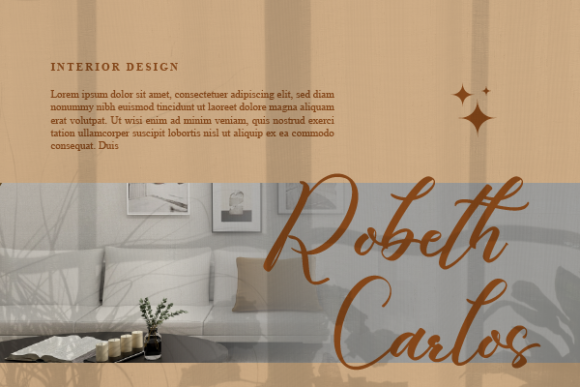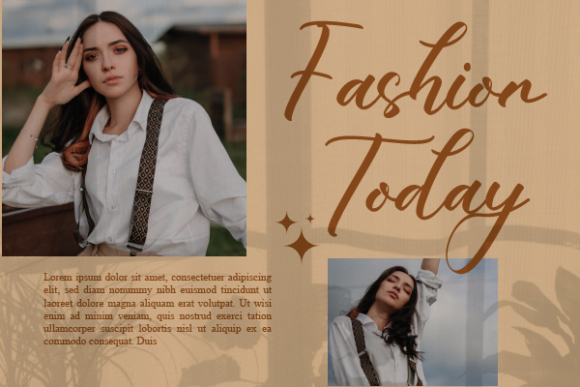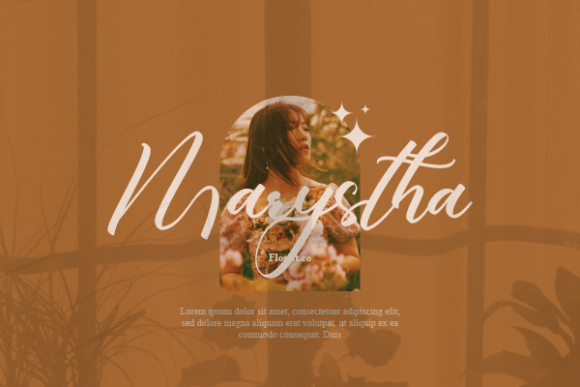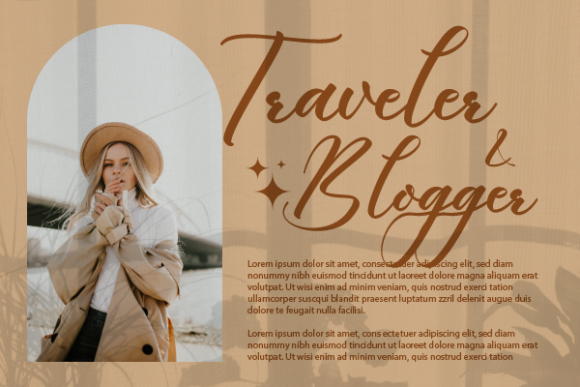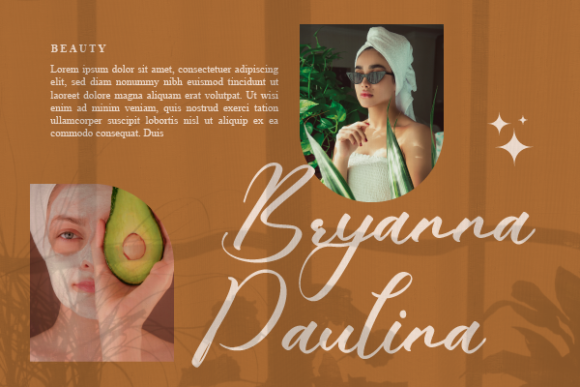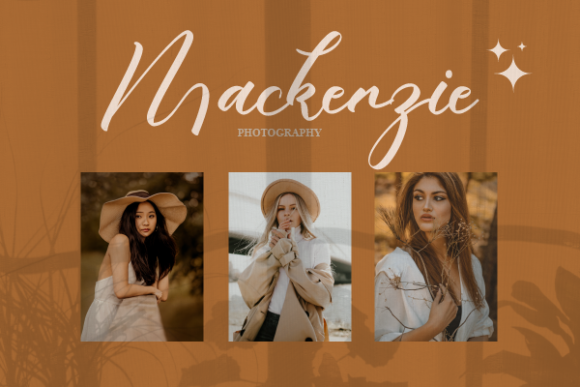
Discover the Elegance of Chandler Nathalia Font
In the world of typography, few fonts manage to strike a balance between charm and elegance. However, Chandler Nathalia Font achieves this delicate balance effortlessly, making it a favorite among designers and crafters. This beautiful font is perfect for adding a customized touch to various designs, from wedding invitations to business cards.
The Charm of Chandler Nathalia Font
Chandler Nathalia Font exudes a sense of sophistication and refinement, making it an ideal choice for designs that require a touch of elegance. Its unique style and flair can instantly elevate your designs, setting them apart from the rest. Whether you’re working on a wedding invitation, a thank you card, or a quote, this font is sure to make your design look stunning.
One of the standout features of Chandler Nathalia Font is its versatility. It can be used for a wide range of designs, including:
- Wedding invitations: Add a touch of romance and elegance to your wedding invitations with this beautiful font.
- Thank you cards: Express your gratitude in style with Chandler Nathalia Font.
- Quotes: Make your quotes stand out with this stunning font.
- Greeting cards: Create beautiful greeting cards for special occasions with Chandler Nathalia Font.
- Logos: Use this font to create a unique and memorable logo for your business.
- Business cards: Add a touch of elegance to your business cards with Chandler Nathalia Font.
Why Designers and Crafters Love Chandler Nathalia Font
Designers and crafters love Chandler Nathalia Font for several reasons:
- Elegant and charming: This font exudes elegance and charm, making it perfect for designs that require a sophisticated touch.
- Highly versatile: Chandler Nathalia Font can be used for a wide range of designs, from wedding invitations to business cards.
- Easy to read: Despite its elegant style, this font is easy to read, making it perfect for designs that require a clear and concise message.
- Customizable: With Chandler Nathalia Font, you can add a customized touch to your designs, making them truly unique.
Tips for Using Chandler Nathalia Font
Here are some tips for using Chandler Nathalia Font effectively:
- Pair it with other fonts: Experiment with pairing Chandler Nathalia Font with other fonts to create a unique and visually appealing design.
- Use it for headings: This font is perfect for headings and titles, making it a great choice for designs that require a clear and concise message.
- Experiment with colors: Try using different colors with Chandler Nathalia Font to create a design that’s truly unique.
In conclusion, Chandler Nathalia Font is a beautiful and versatile font that’s perfect for designers and crafters. Its elegant and charming style makes it ideal for designs that require a sophisticated touch. With its high level of versatility and ease of use, this font is sure to become a favorite among designers and crafters. So why not give it a try and see how it can elevate your designs?